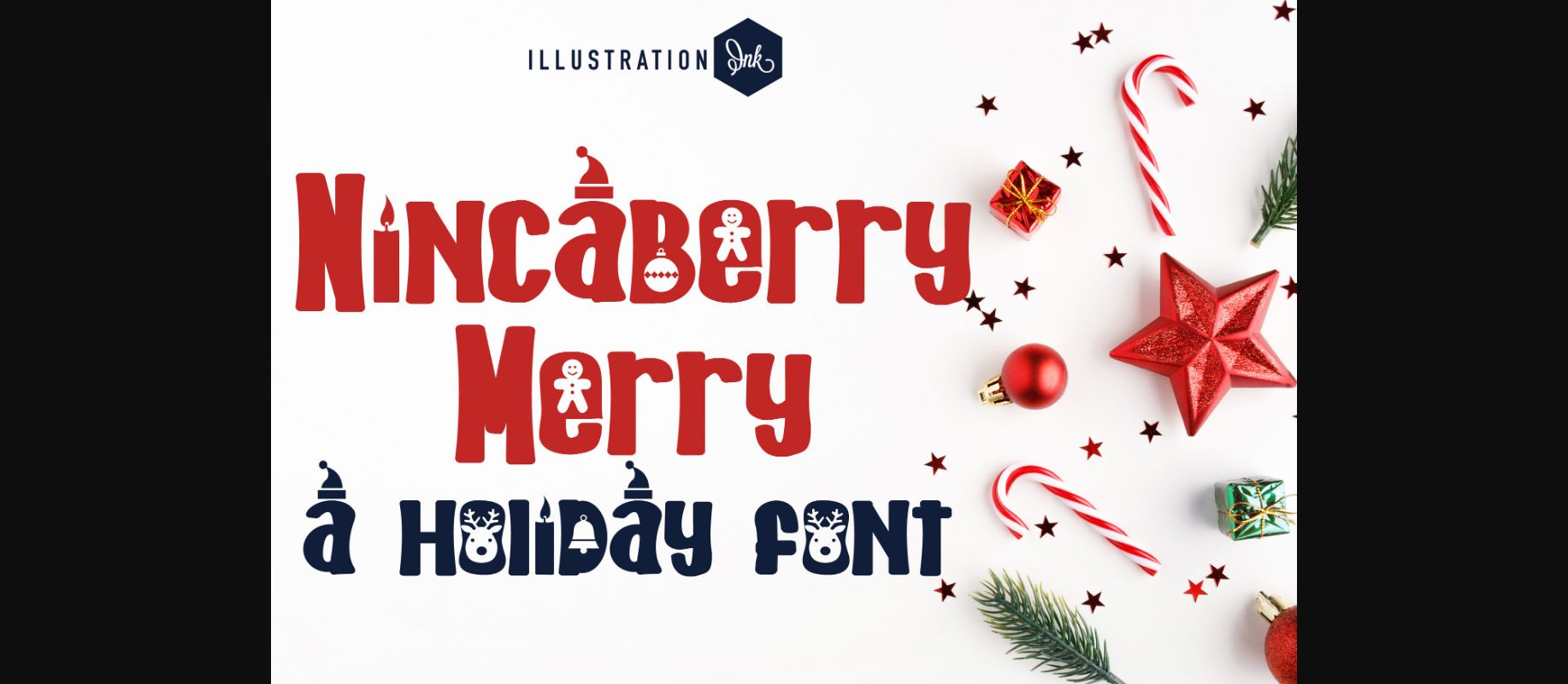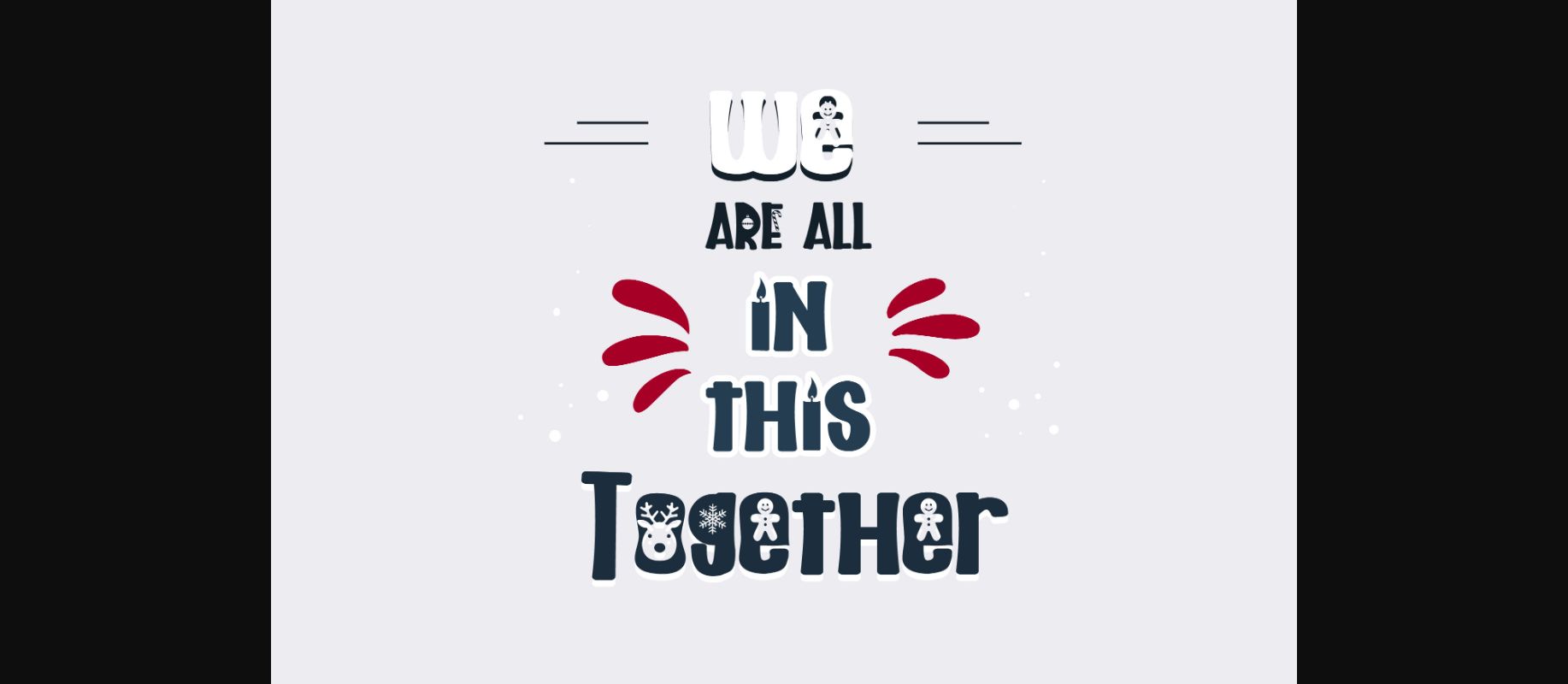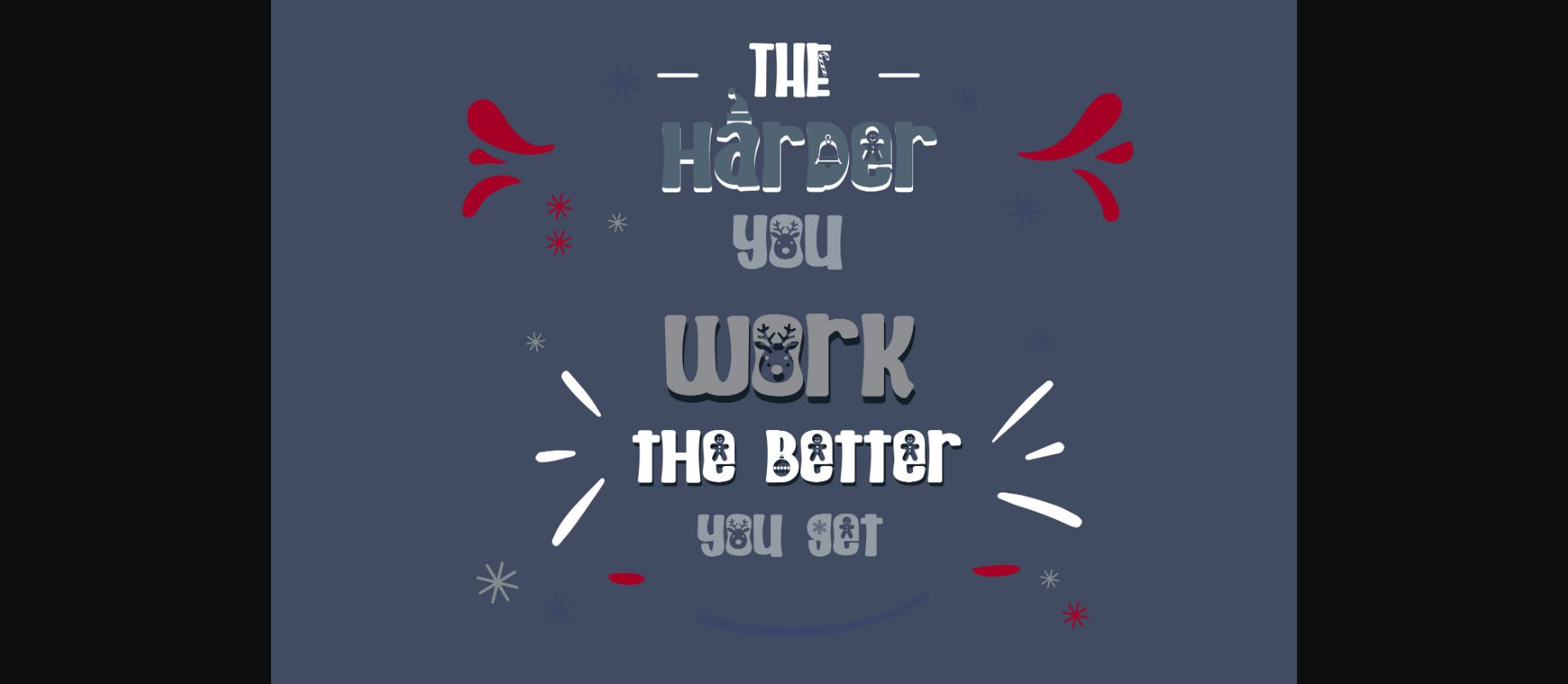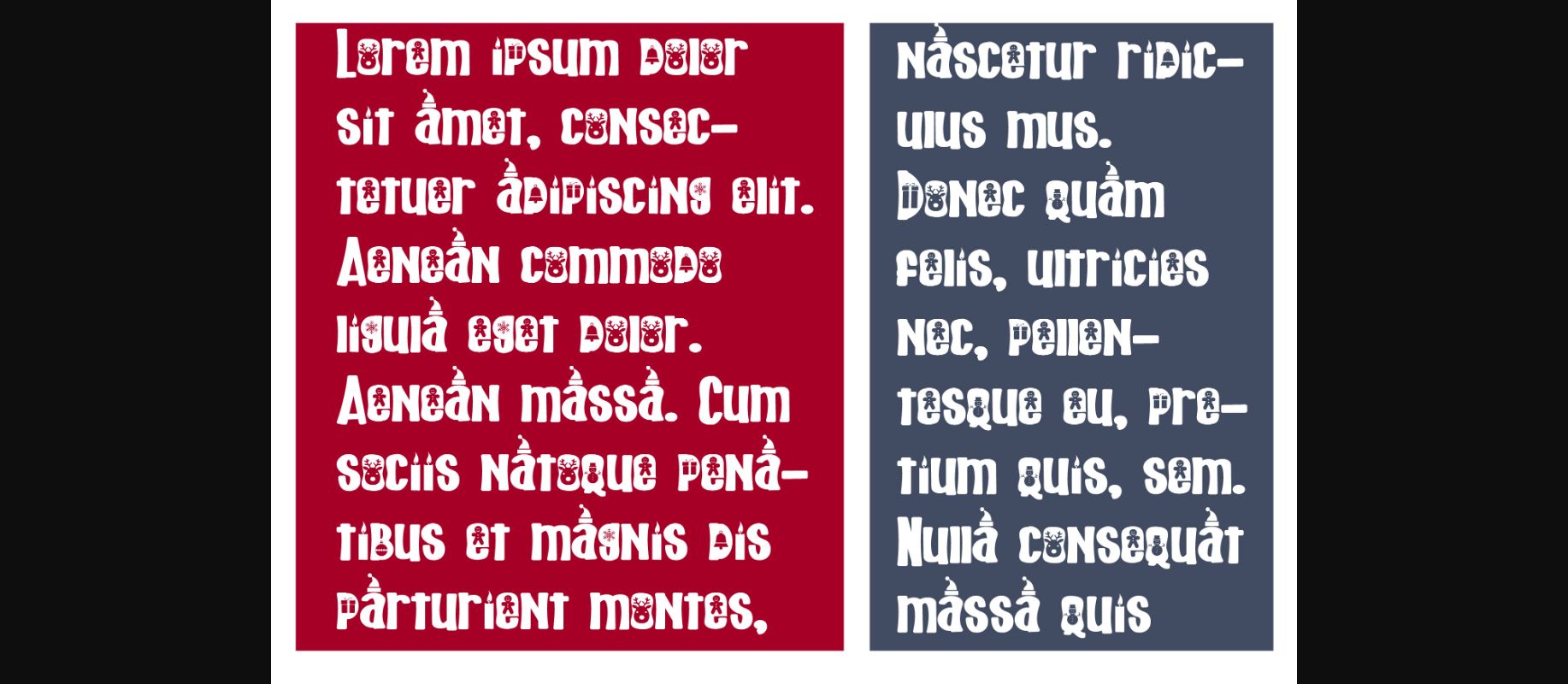
About Nincaberry Merry Font
This hand-crafted sans serif font features Christmas characters and ornaments throughout.
A hand-crafted font is a font that is designed to look like it was written by hand. It is often used for invitations, greeting cards, and other items. Handwritten fonts can be either formal or informal, and they can be used for a variety of purposes.
Handwritten fonts can be a great way to add a casual touch to your designs. They can also be used to create a sense of nostalgia or whimsy. However, it is important to choose a handwritten font that is appropriate for the project you are working on. A formal handwritten font may not be appropriate for a casual invitation, while an informal handwritten font may not be appropriate for a corporate document.
A hand-crafted font is a font that is designed to look like it was written by hand. It is often used for invitations, greeting cards, and other items. Handwritten fonts can be either formal or informal, and they can be used for a variety of purposes.
Handwritten fonts can be a great way to add a casual touch to your designs. They can also be used to create a sense of nostalgia or whimsy. However, it is important to choose a handwritten font that is appropriate for the project you are working on. A formal handwritten font may not be appropriate for a casual invitation, while an informal handwritten font may not be appropriate for a corporate document.